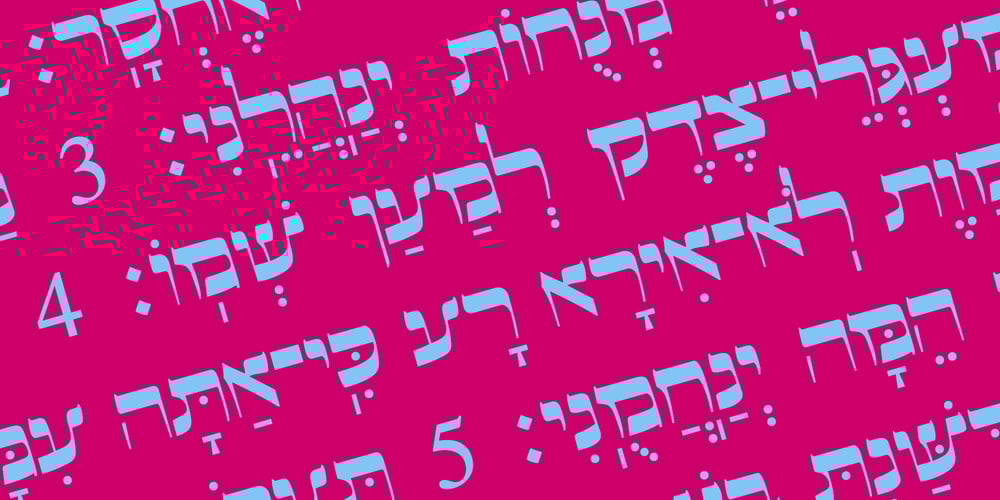
Hebrew Pirkei Avot Std Font Family was designed by Sami Artur Mandelbaum and published by Samtype. Hebrew Pirkei Avot Std contains 1 styles and family package options. This is beautiful script font based in typeface of the Pirkei Avot book.